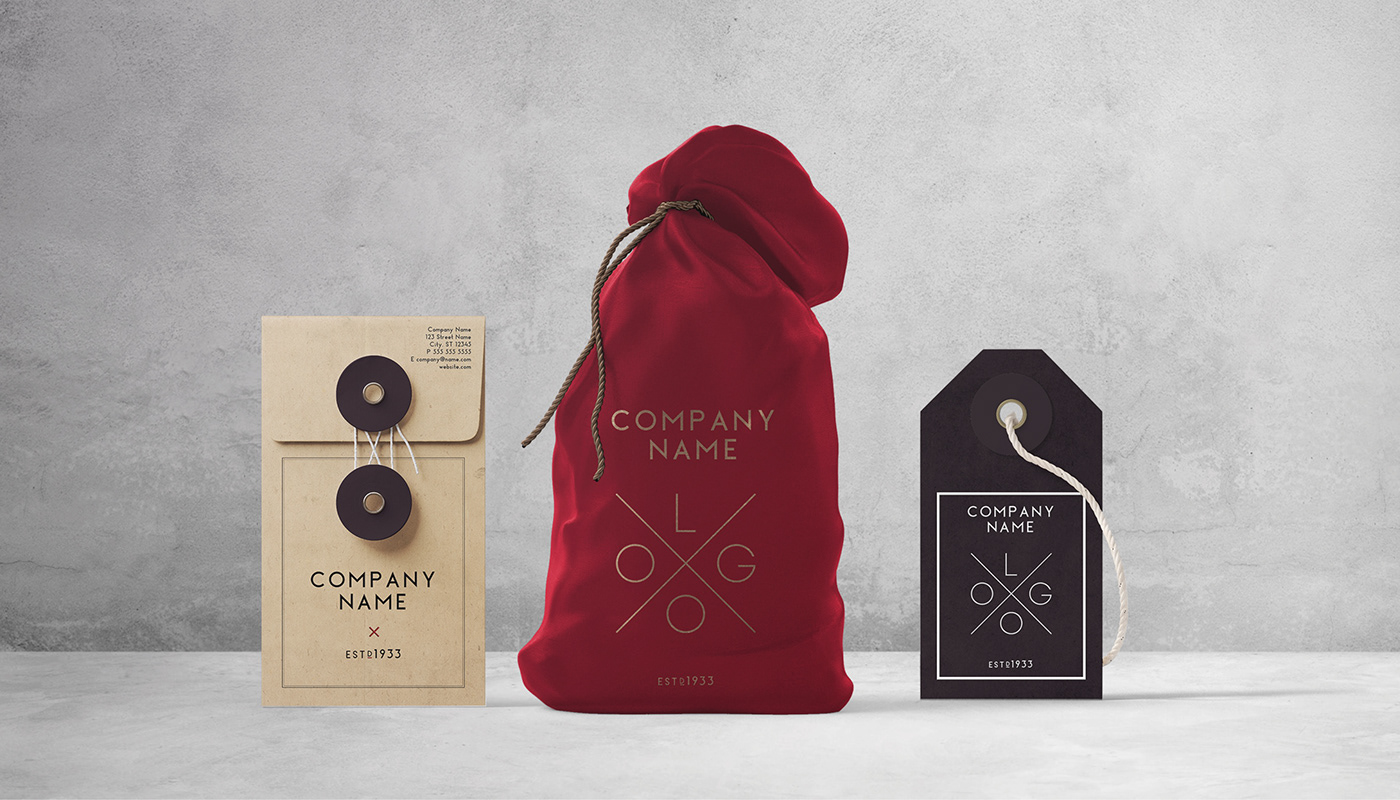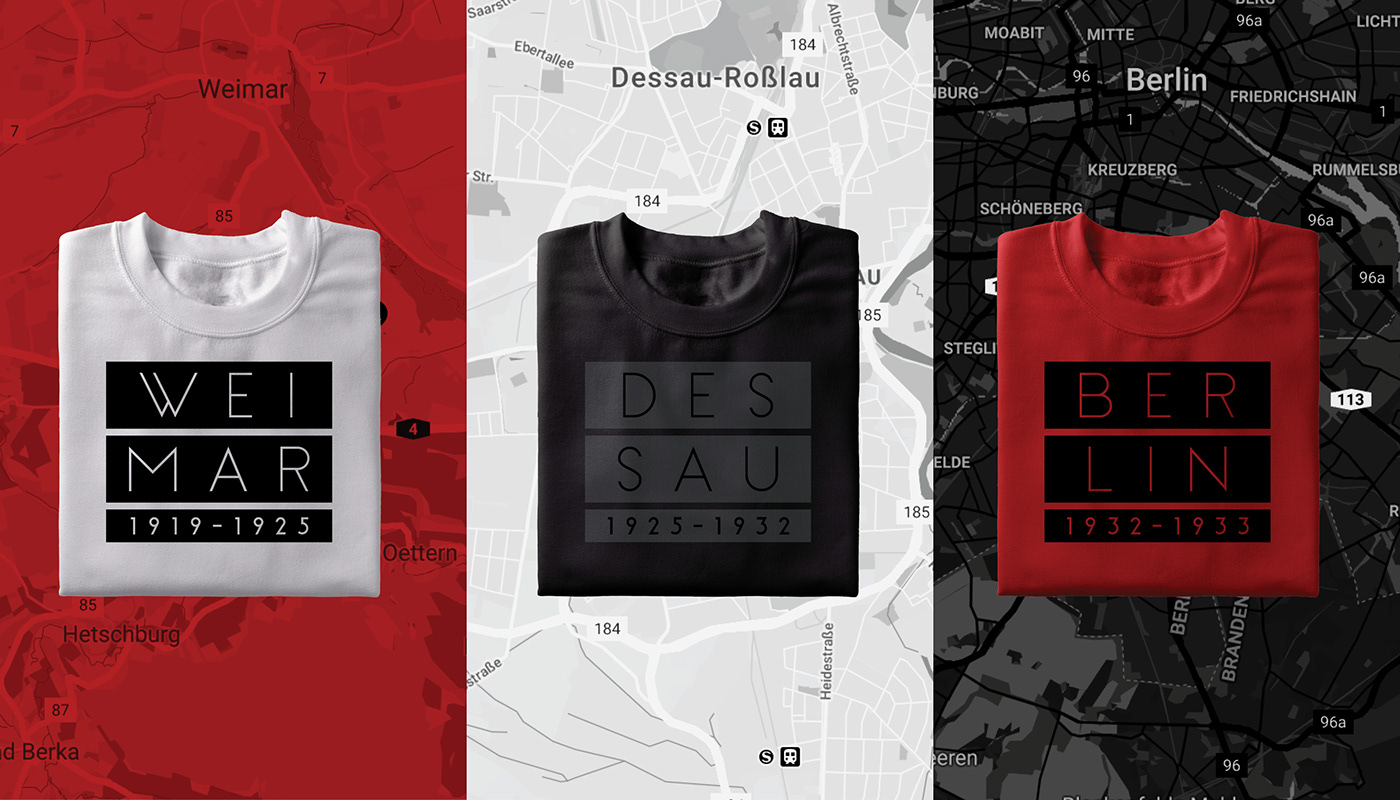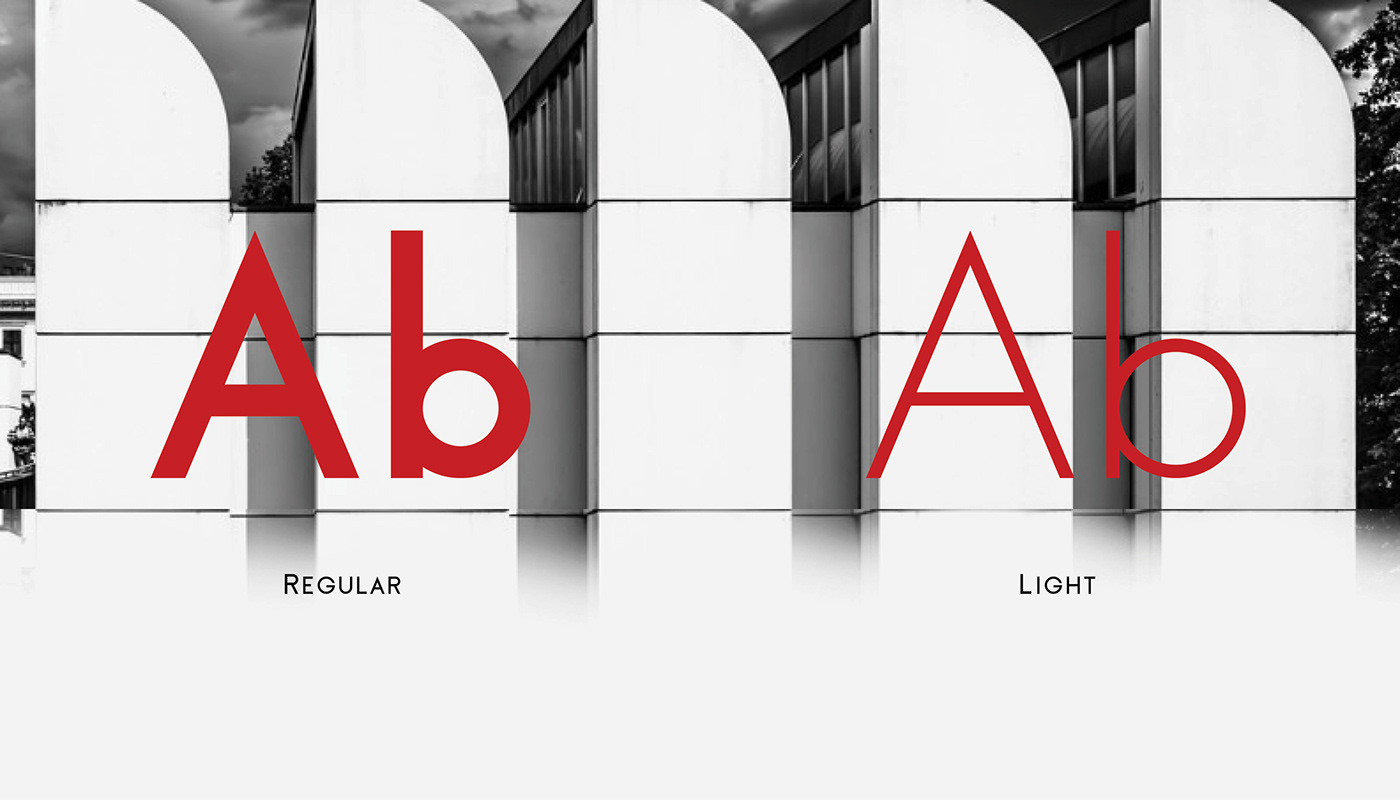
Sauber Typeface
Thank you for looking this font. A typeface inspired by German Modernism and bauhaus architecture & design. Introducing Sauber Font! A clean and professional Sans Serif font inspired by the German art school, Bauhaus. It can be used in many creative ways, all kinds of graphics, posters, advertising materials, text composition. It fits perfectly for the film industry as well as many other fields.